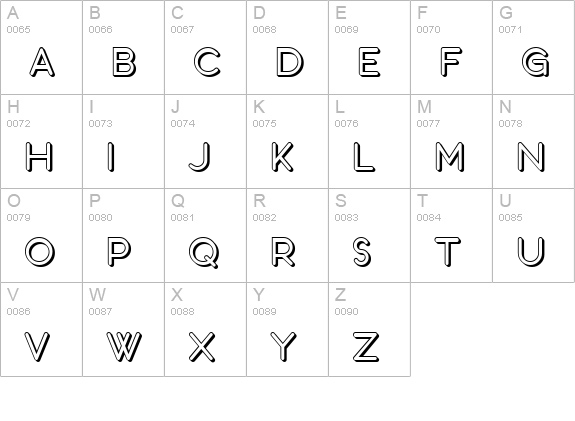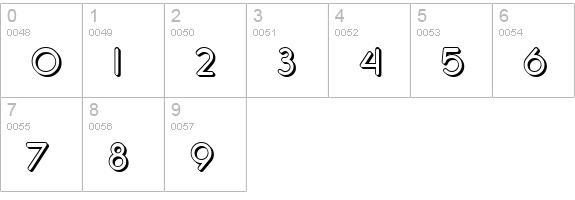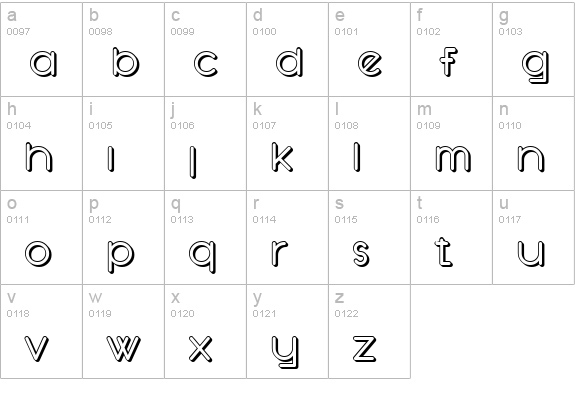
SF Orson Casual Shaded Font Details
SF Orson Casual Shaded font is a stunning display font that effortlessly combines elegance with a touch of playfulness. Its unique and eye-catching design is perfect for adding a touch of sophistication to any project or design. With its smooth and flowing letterforms, SF Orson Casual Shaded font is sure to captivate and engage readers. The subtle shading adds depth and dimension to each character, creating a visually appealing and dynamic visual experience. This font is versatile and can be used for a wide range of design projects, such as logos, headlines, posters, and more. Its bold and impactful appearance makes it ideal for making a statement and grabbing attention. Whether you're designing a sleek and modern website or a vintage-inspired poster, SF Orson Casual Shaded font is sure to elevate your design to the next level. One of the best things about SF Orson Casual Shaded font is that it is available for free. Yes, you read that right - this incredible font is freely available to download at FontsMarket.com. Now you can bring elegance and creativity to your designs without having to spend a dime. So why wait? Download SF Orson Casual Shaded font today and unleash your creativity. Whether you're a professional designer or a hobbyist, this font is sure to become a valuable addition to your font collection. Get ready to impress with its impeccable style and versatility.